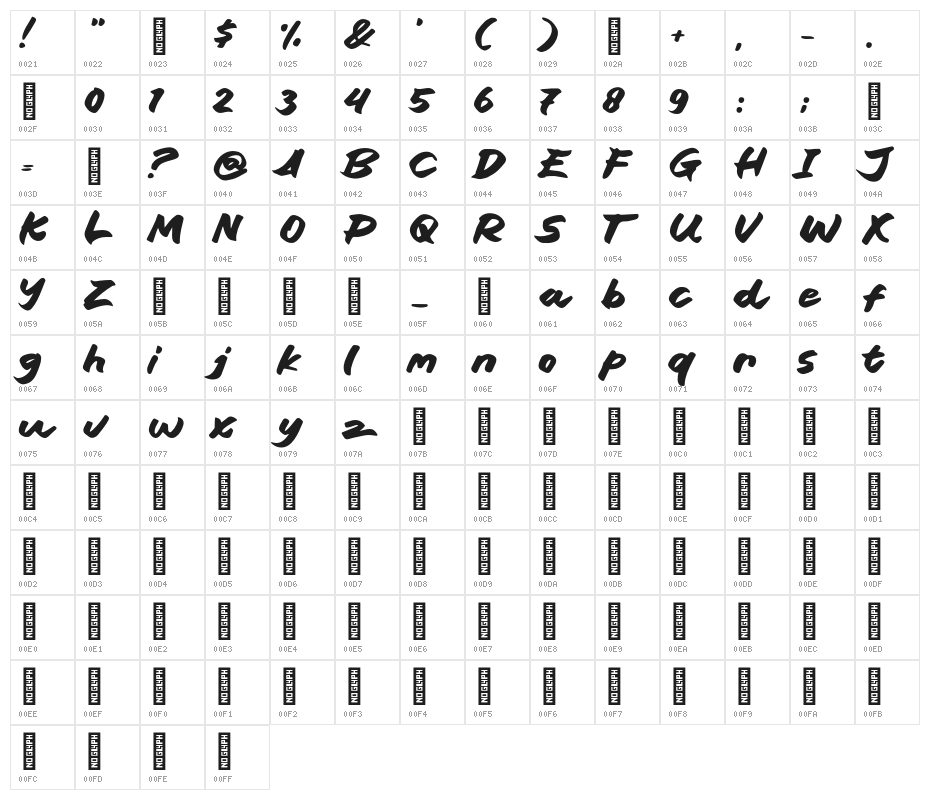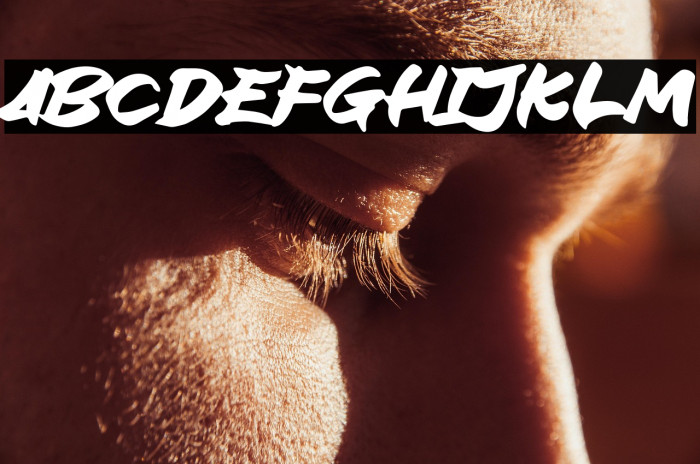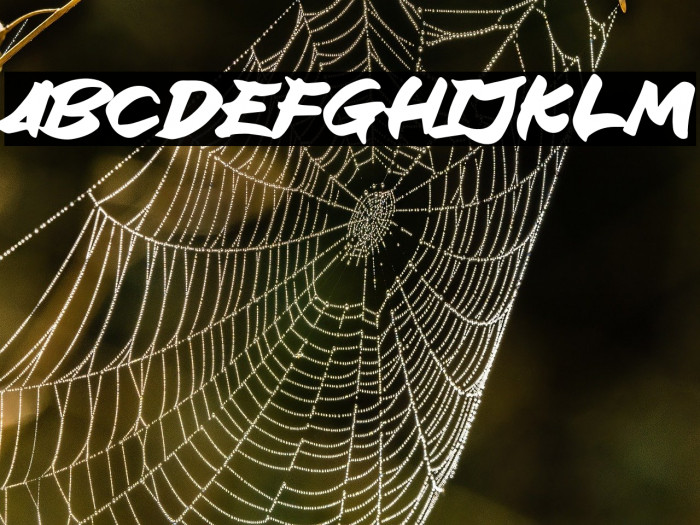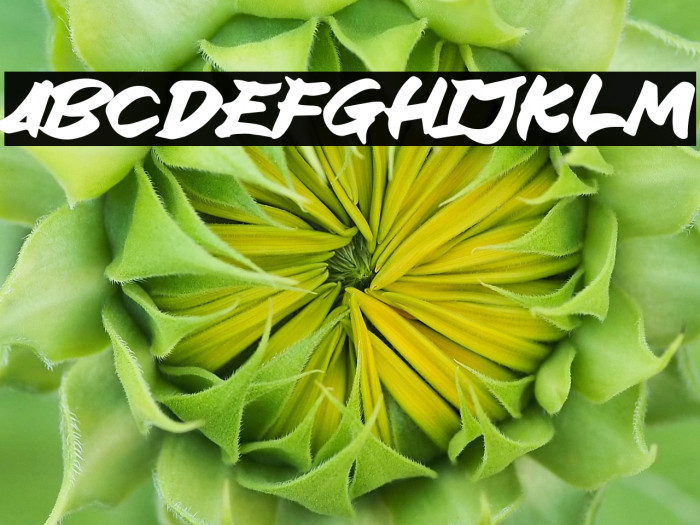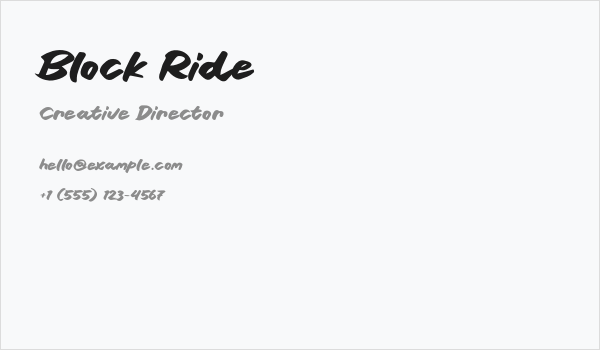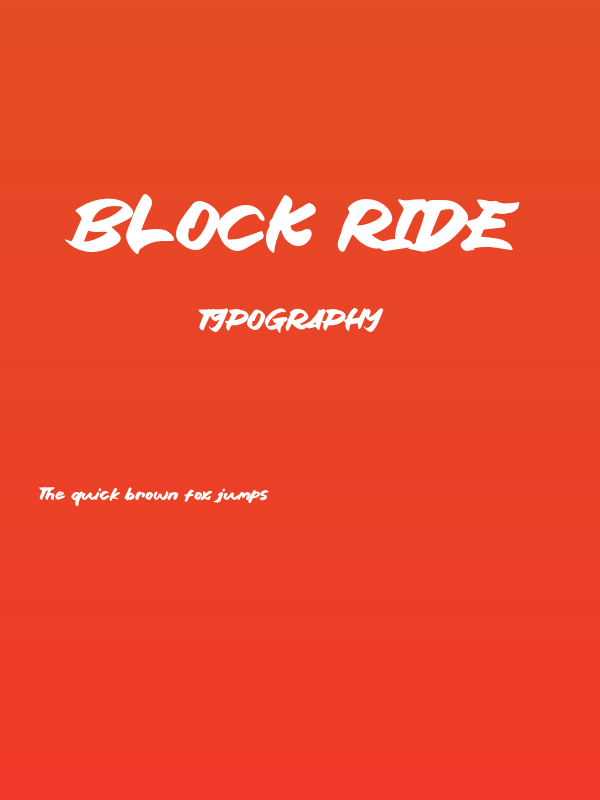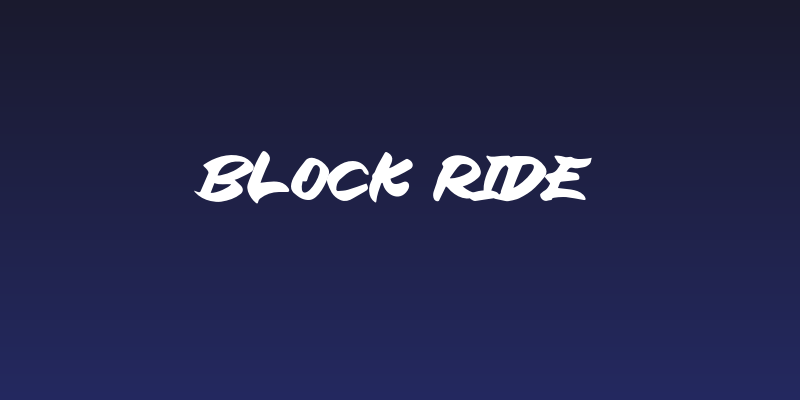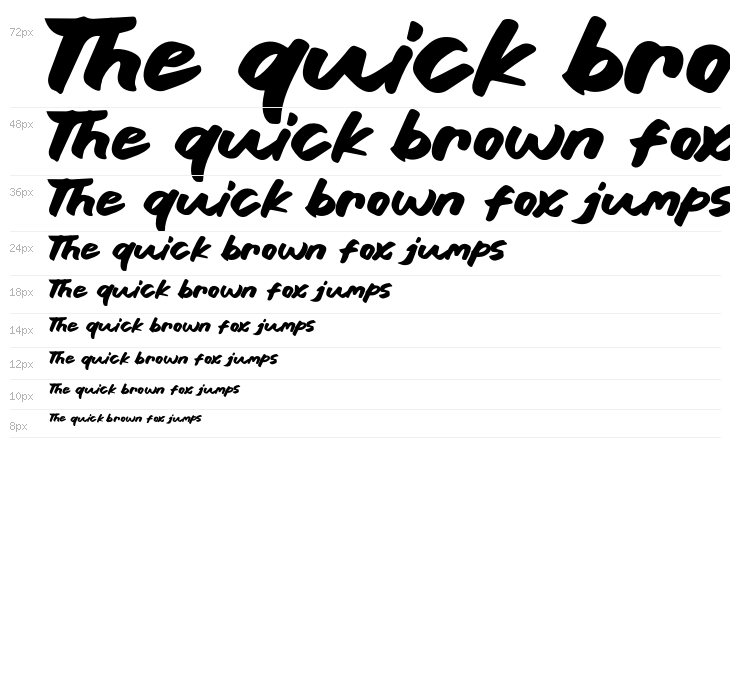
Block Ride Font
Block Ride Description
This font features a bold and dynamic script style with a handwritten appearance. The letters are fluid and connected, giving a sense of motion and energy. The uppercase and lowercase characters maintain a consistent style, with rounded edges and a slight slant, enhancing its casual and approachable look. Numbers and special characters follow the same design principles, ensuring uniformity across all glyphs. The overall impression is one of creativity and expressiveness, making it suitable for projects that require a personal touch.
| Use Case | Logos, Headlines, Creative projects |
| Proposed Projects | Ideal for branding, invitations, greeting cards, and creative posters. |